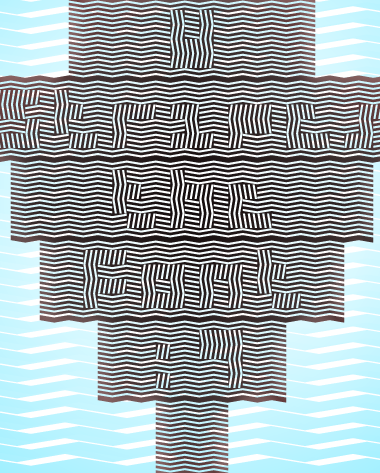
Cool! Add an ending character, please. 9/10.
Thanks, BZ. Adding space characters after the starting character, and at the end of words, works well to pad out the wave pattern. Like in this sample below. :)
I think xenophilius just got pwnd.
But that says something. Good job both of you :)
Wow! No words!
Yeah, I did just get pwnd. This is so much better than my font. I give this a 13/10.
I love the composites you have outdone yourself to create.
Thanks for digging my bit of composite wizardry. The strength of the design lives and dies by the original pixel font, so that distinction goes to Xeno for the bold source material (ok, I made a couple tweaks, notably a and j). I really feel it’s neither a question of ownership or pwnership — if this is at all a competition, the only victory comes through each of us shining our creative lights and making beauty.
There is so much more hidden potential within and beyond composite bricks; I do hope these offerings illuminate your own journeys of exploration and creation!
Congratulations! FontStruct Staff have deemed your FontStruction worthy of special mention. “W Stripes the Font” is now a Top Pick.
Great Job!!!!!!!!!!!!! Love it!
whoa! i like it very very much!!! I can't think how you gone out of mind to build it! massive! 10/10
The contrast is very low, even null, you know ! ;-) and with or without waves (the same can be achieved in many similar ways : dots, patterns…) I enjoyed the spaghetti effect of the texture (better than the pixel characters this time), and the confusion at the first two seconds. Funny.
Ow my eyes
absolutely atrocious, i love it
It's like an optical illusion (to me)